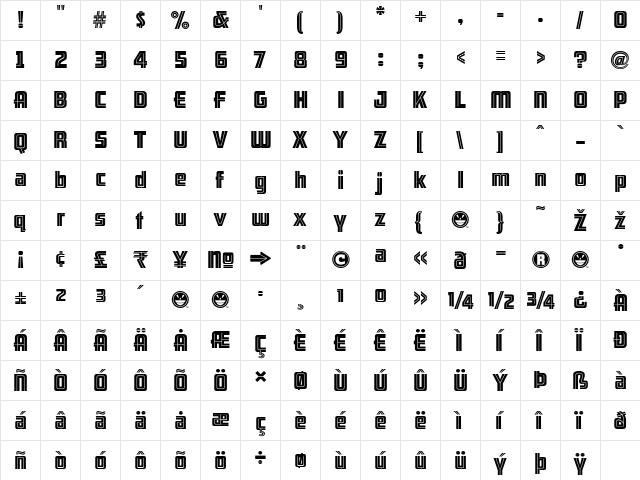
ARB 66 Neon Line JUN-37 Regular
Design Context for ARB 66 Neon Line JUN-37 Typeface
ARB 66 Neon Line JUN-37 channels digital-age aesthetics through its sharp, structured letterforms — ideal for brands that want to signal innovation.
Pro Tip: Try ARB 66 Neon Line JUN-37 with generous letter-spacing in UI labels and navigation — the geometric forms benefit from room to breathe.